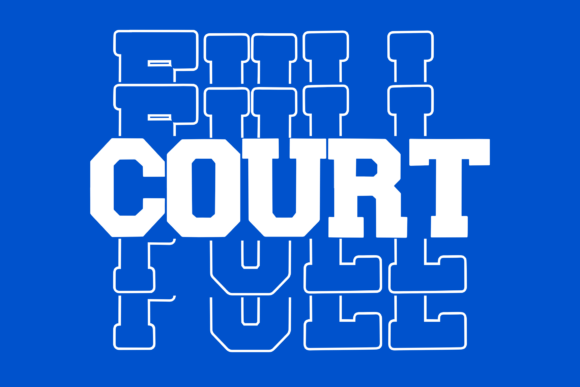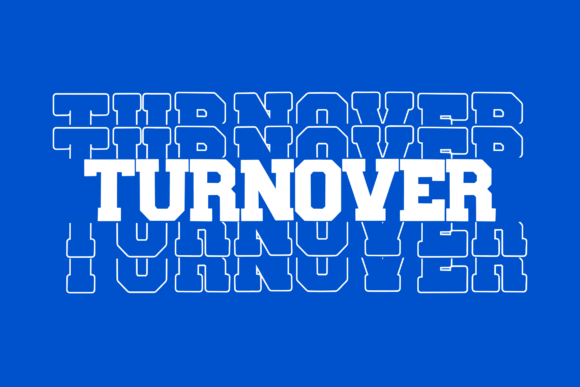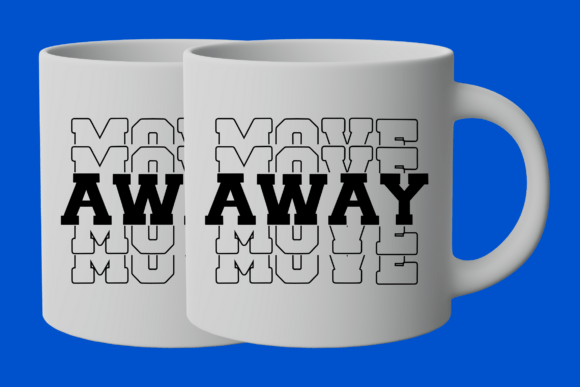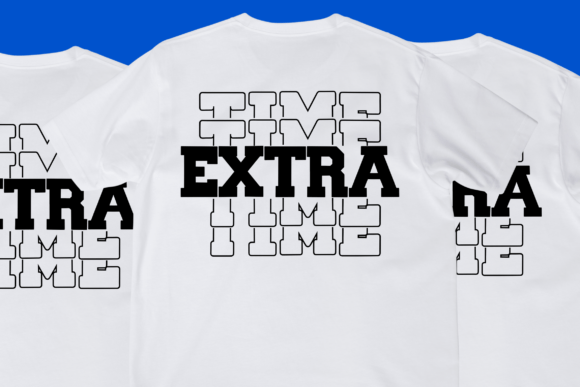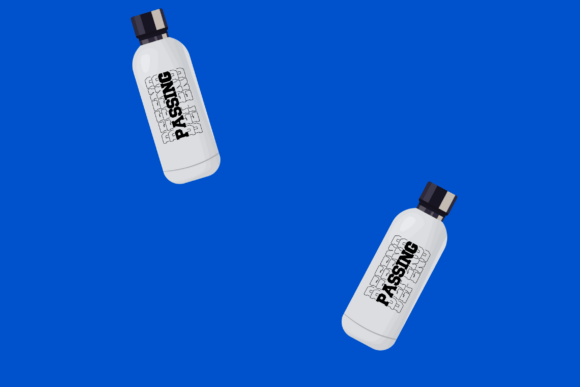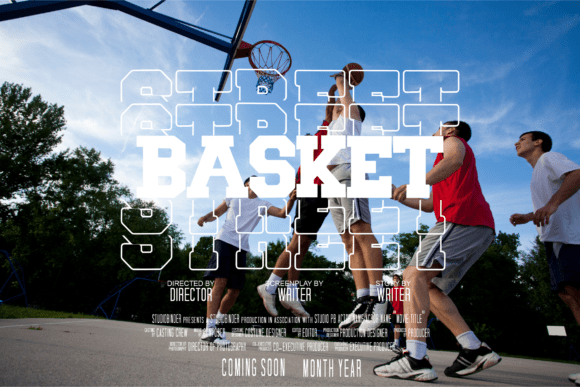
Introduction to Scholar Stacked Monogram Font
Do you remember the excitement of receiving your first varsity letter or the pride of wearing your school’s colors on game day? For many of us, the nostalgia of academic and athletic traditions is deeply tied to the fonts and logos that represent our alma maters. If you’re looking to tap into that nostalgia or create a design that embodies the spirit of education and competition, you’re in luck – the Scholar Stacked Monogram Font is here to help.
As a valuable design resource, this high-quality font is perfect for digital crafters, Cricut or Silhouette users, and small business designers working on school-themed projects. With its clean, stacked monogram layout and structured block shapes, the Scholar Stacked Monogram Font is sure to elevate your creative project and give it a professional, transparent background that will make your designs stand out.
Key Features of Scholar Stacked Monogram Font
- Unique stacked monogram design featuring transparent background, perfect for layered or combined designs.
- Designed to be versatile and elegant, suitable for various design projects, from wedding invitations to business logos.
Honest Review: Scholar Stacked Monogram Font
As a designer, I’m always on the lookout for high-quality design resources that can elevate my creative projects. The Scholar Stacked Monogram Font caught my eye with its unique, stacked monogram design. I downloaded it for free and put it to the test.
Here’s what works well: ✨
- Unique, stacked monogram design that adds a touch of elegance to any project
- High-quality font that’s perfect for logos, letterheads, and other branding materials
- Transparent background makes it easy to combine with other design elements
However, I did encounter some limitations: ⚠️
- Only available in a few font weights, which may limit its versatility
- No bold or italic versions, which can make it harder to use in certain situations
Overall, I’m impressed with the Scholar Stacked Monogram Font. Its unique design and high-quality rendering make it a great addition to any designer’s toolkit. While it may have some limitations, it’s definitely worth considering for your next creative project.
Scholar Stacked Monogram Font is ideal for academic and professional settings, such as creating certificates, diplomas, and business cards. It’s also perfect for personal projects, like creating custom invitations and party decorations.
Experiment with different font sizes and colors to achieve the desired look. Use the font in combination with other design elements to create a unique and eye-catching design. With a little creativity, the Scholar Stacked Monogram Font can take your design project to the next level.